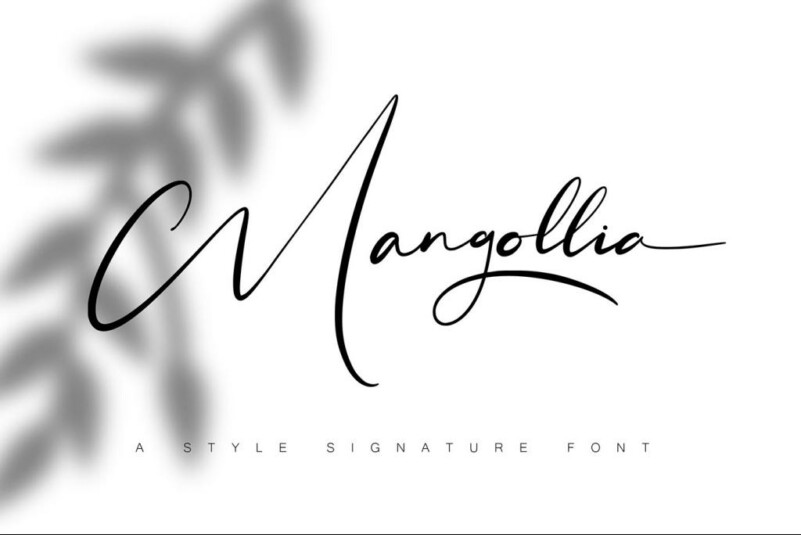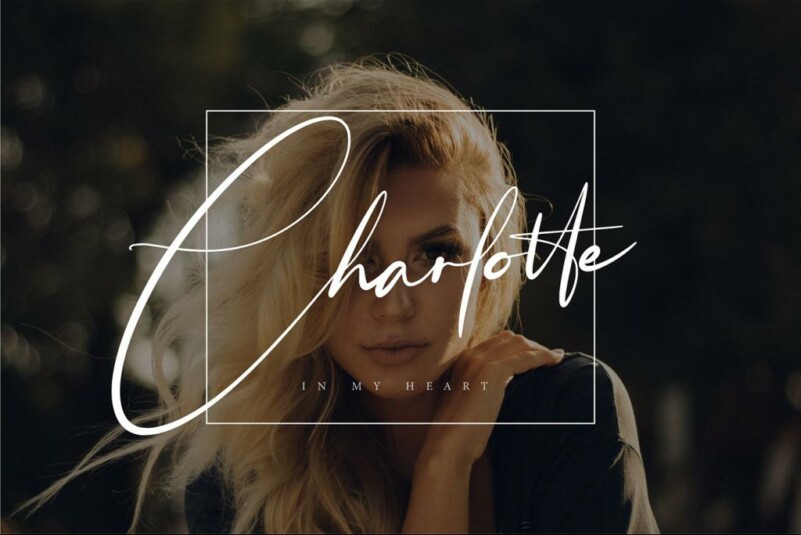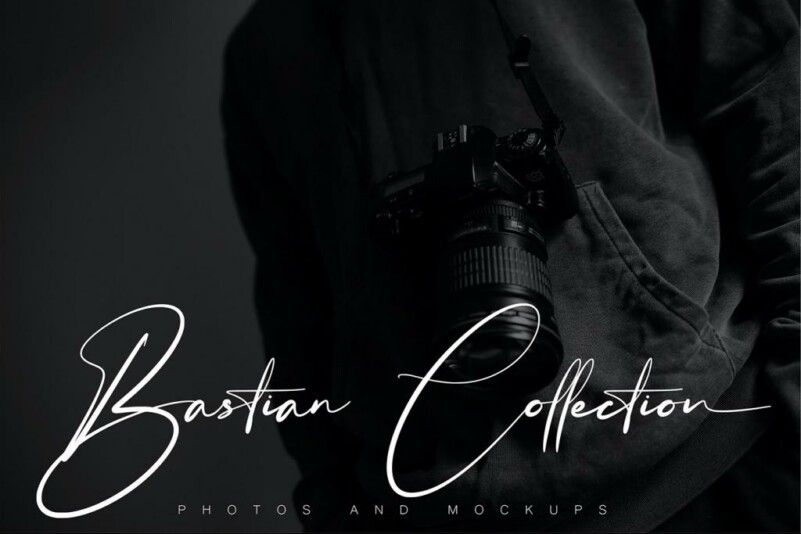
Mangollia Font
Mangollia FontMangollia Signature is a script typeface with hand-drawn strokes and light-bold lines that make this font look beautiful and modern. Get a touch of a modern, simple and fun signature script font, with glyphs and open type features with stylization and ligatures, swashes, and alternative additions. It can be used for various purposes. such as brand names, wedding cards, signatures, logos, etc.
Mangollia Signature, with simple strokes and light lines makes this font look beautiful and modern. Mangolia Signature is supported with additional characters that have Alternative forms, which will help you achieve beautiful styles with your own creations.